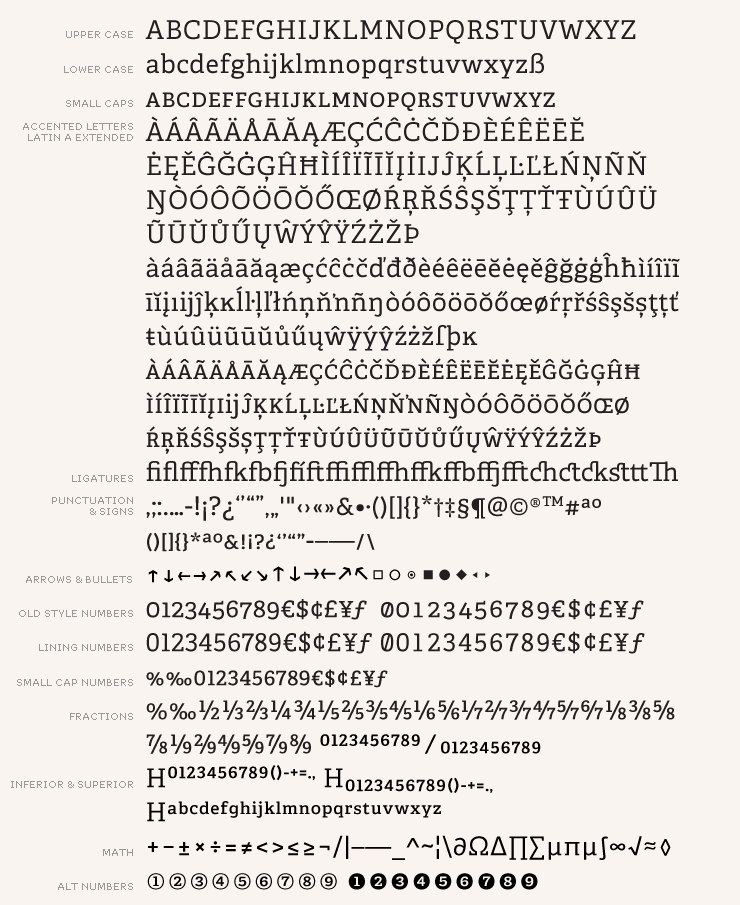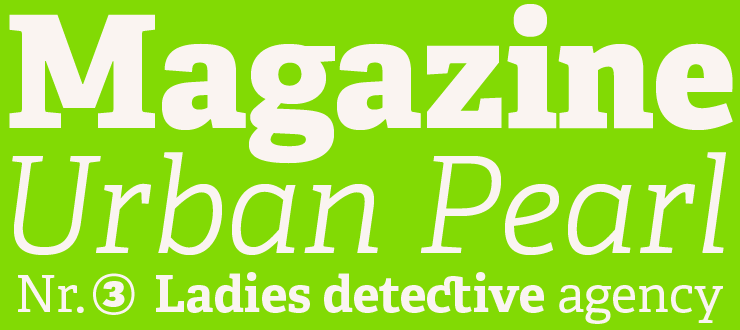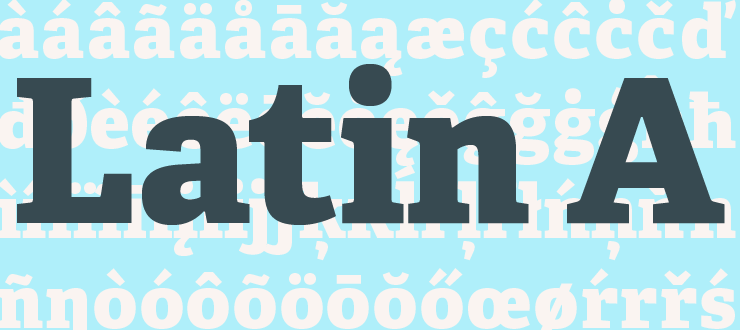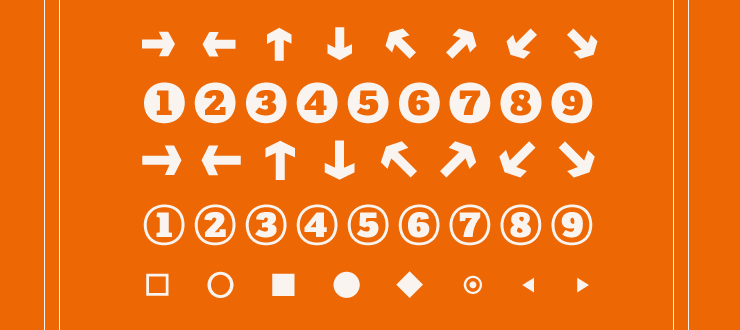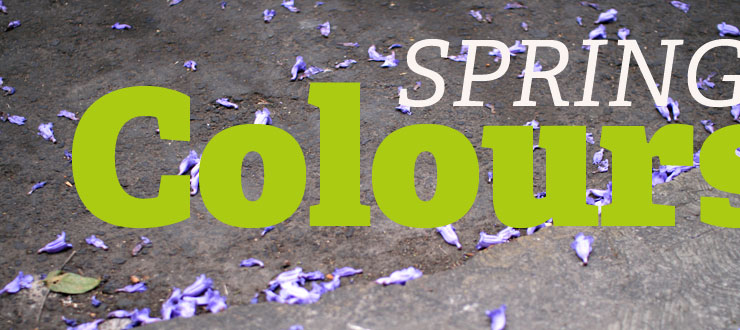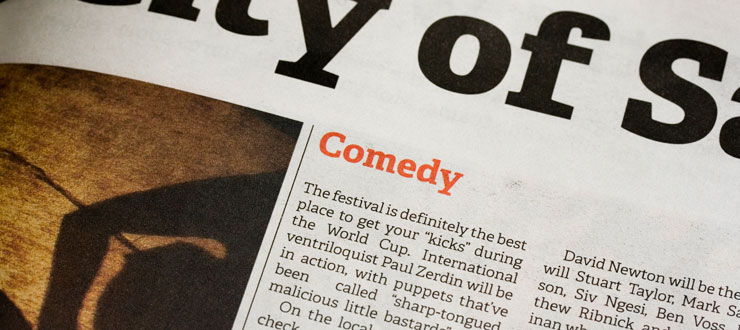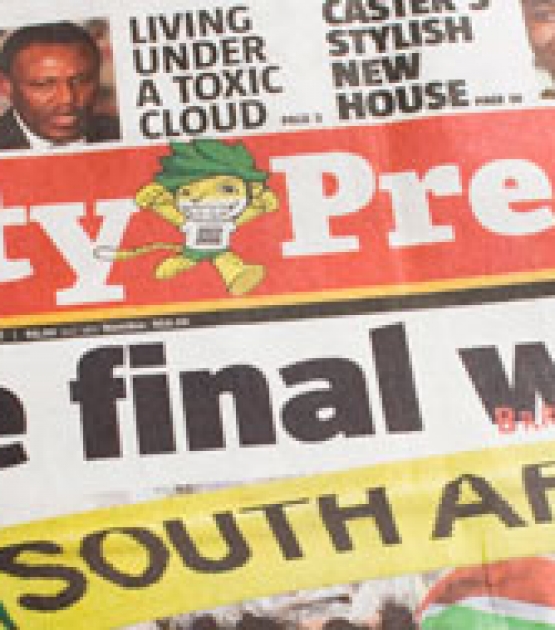
Adelle
Designed by Veronika Burian José Scaglione. Released 2009.
While the Adelle font family is a slab serif for intensive editorial use, its personality and flexibility make it a true multipurpose typeface, especially on the web. The unobtrusive appearance, excellent texture, and slightly dark colour allow it to behave flawlessly in continuous text, even in the most unforgiving applications. As it becomes larger in print, the Adelle fonts show personality through a series of measured particularities which make it easy to remember and identify. Adelle is a versatile and authoritative slab serif font family with no shortage of personality.
• Third prize, 2009 Granshan Type Design Competition
• Gold, 2010 European Design Awards
• Ukrainian typeface competition, 2010
• Rutenia Calligraphy & Typography Festival Exhibition, 2010
• 2011 Type Directors Club Tokyo Exhibition
• Communication Arts 2011 Typography Annual
• Yearbook of Type I, 2013
• «Call for Type» and subsequent book Neue Schriften
Adelle
A versatile and authoritative slab serif font family with no shortage of personality.
The Adelle font family is a slab serif typeface conceived by Veronika Burian and José Scaglione specifically for intensive editorial use — mainly in newspapers, magazines, and online. Its personality and flexibility make it a true multipurpose typeface and its superior screen rendering and cross-platform consistency has made it one of our most popular webfonts.
Adelle's intermediate weights deliver a neutral look when used in text sizes, providing the usual robustness expected in a newspaper font. The unobtrusive appearance, excellent texture, and slightly dark colour allow it to behave flawlessly in continuous text, even in the most unforgiving editorial applications. As it becomes larger in print, Adelle shows its personality through a series of measured particularities which make it easy to remember and identify. Its energetic character, so inherent to slab serif fonts, becomes evident when used for subheadings and headlines.
A condensed series of seven weights with matching italics expand Adelle’s possibilities. This extension provides flexible solutions in situations where saving space is vital but losing legibility is not an option. The condensed series of fonts shares the same personality, proportions, and skeleton of the Adelle family, creating an harmonious texture when combined.
All 14 styles support Cyrillic and monotonic Greek script languages. To ensure typographic adherence to current trends in each script, Russian designer Alexandra Korolkova consulted on the Cyrillic script and Greek expert Irene Vlachou designed the Greek script. The complete Adelle font family, along with our entire catalogue, has been optimised for today’s varied screen uses.
Be sure to check out the companion to Adelle — Adelle Sans — to complete the look of your design with the intended personality and flexibility.